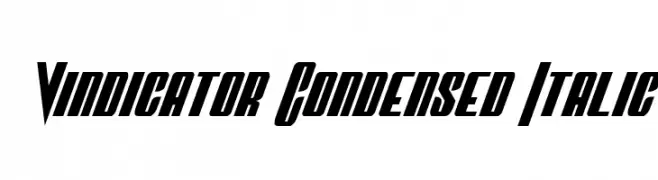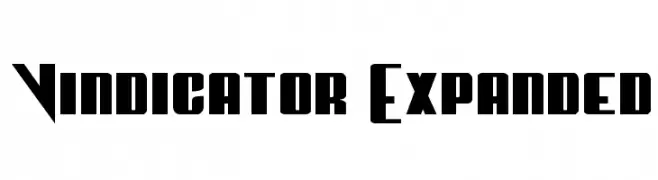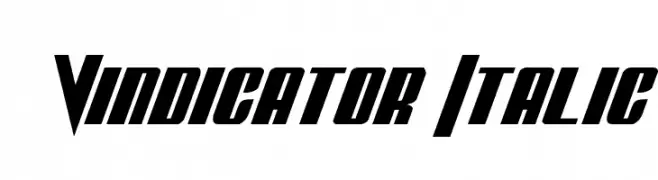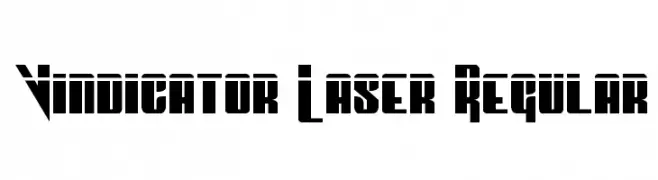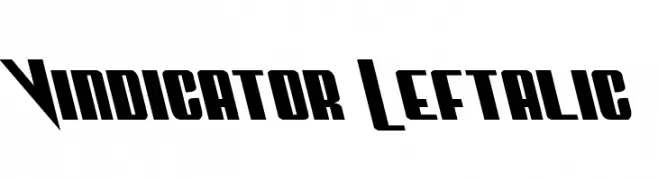
Vindicator Condensed Italic Font
Font by Daniel Zadorozny - www.iconian.com
A bold, italic, and condensed font with a dynamic and modern style.
Vindicator Italic Font
Font by Daniel Zadorozny - www.iconian.com
A bold, italicized font with a dynamic and modern style.
Vindicator Laser Font
A bold, futuristic font with sharp angles and a geometric style.
Vindicator Halftone Italic Font
A bold, italicized font with a halftone effect and dynamic horizontal lines.
Vindicator Expanded Italic Font
Font by Daniel Zadorozny - www.iconian.com
A bold, expanded, and italicized font with a modern, angular design.
Vindicator Condensed Font
Font by Daniel Zadorozny - www.iconian.com
A bold, condensed font with a geometric and modern style.
Vindicator Font
A bold, geometric font with a strong, blocky appearance.
Vindicator Regular Font
Font by Daniel Zadorozny - www.iconian.com
A bold, geometric font with sharp angles and tight spacing.
Vindicator Laser Italic Font
Font by Daniel Zadorozny - www.iconian.com
A bold, italicized font with a futuristic and dynamic design.
Vindicator Outline Italic Font
Font by Daniel Zadorozny - www.iconian.com
A bold, italicized outline font with a modern, angular design.
Vindicator 3D Font
A bold, 3D geometric font with outlined characters and sharp angles.
Vindicator 3D Italic Font
Font by Daniel Zadorozny - www.iconian.com
A bold, 3D italic font with a futuristic and dynamic style.
Vindicator Halftone Font
A bold, geometric font with a halftone effect, perfect for dynamic and modern designs.
Vindicator 3D Regular Font
Font by Daniel Zadorozny - www.iconian.com
A bold, 3D font with a strong, industrial aesthetic.
Vindicator Semi-Italic Font
A bold, italicized font with angular, high-contrast strokes and a dynamic presence.
Vindicator Gradiant Italic Font
A bold, italicized font with a dynamic gradient pattern and futuristic style.
Vindicator Super-Italic Font
A bold, italic font with high contrast and dynamic style.
Vindicator Laser Regular Font
Font by Daniel Zadorozny - www.iconian.com
A bold, futuristic font with sharp angles and geometric shapes.
Vindicator Expanded Font
Font by Daniel Zadorozny - www.iconian.com
A bold, geometric font with a futuristic and commanding presence.
Vindicator Gradiant Font